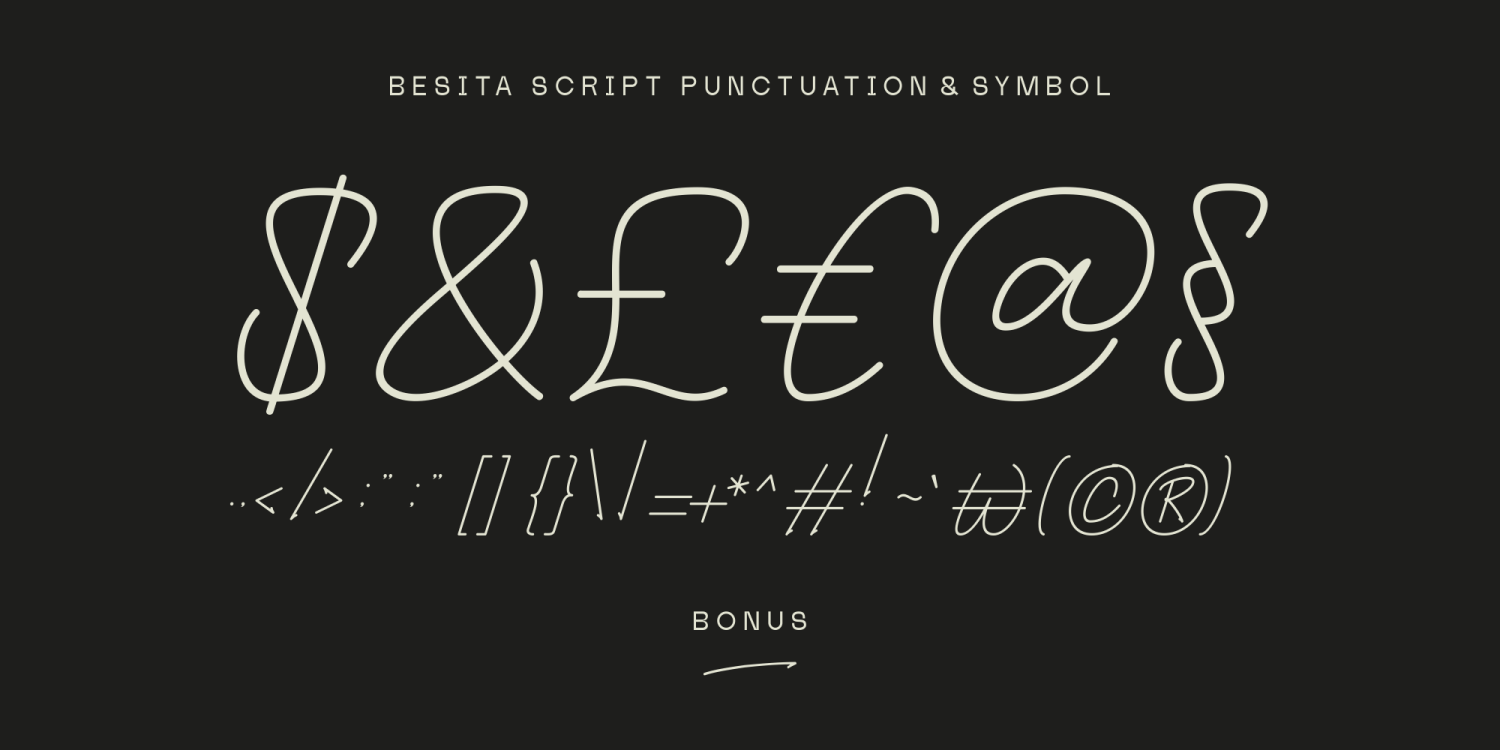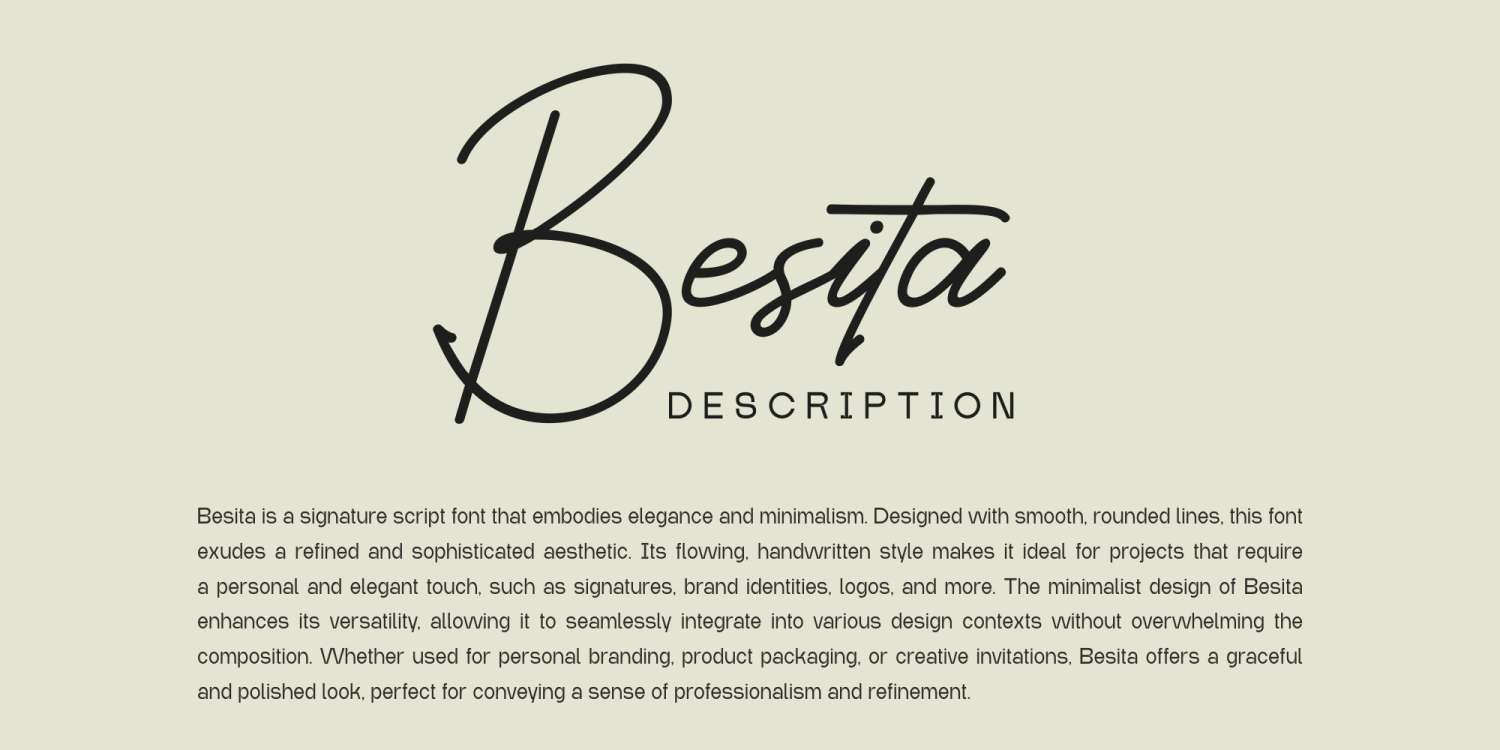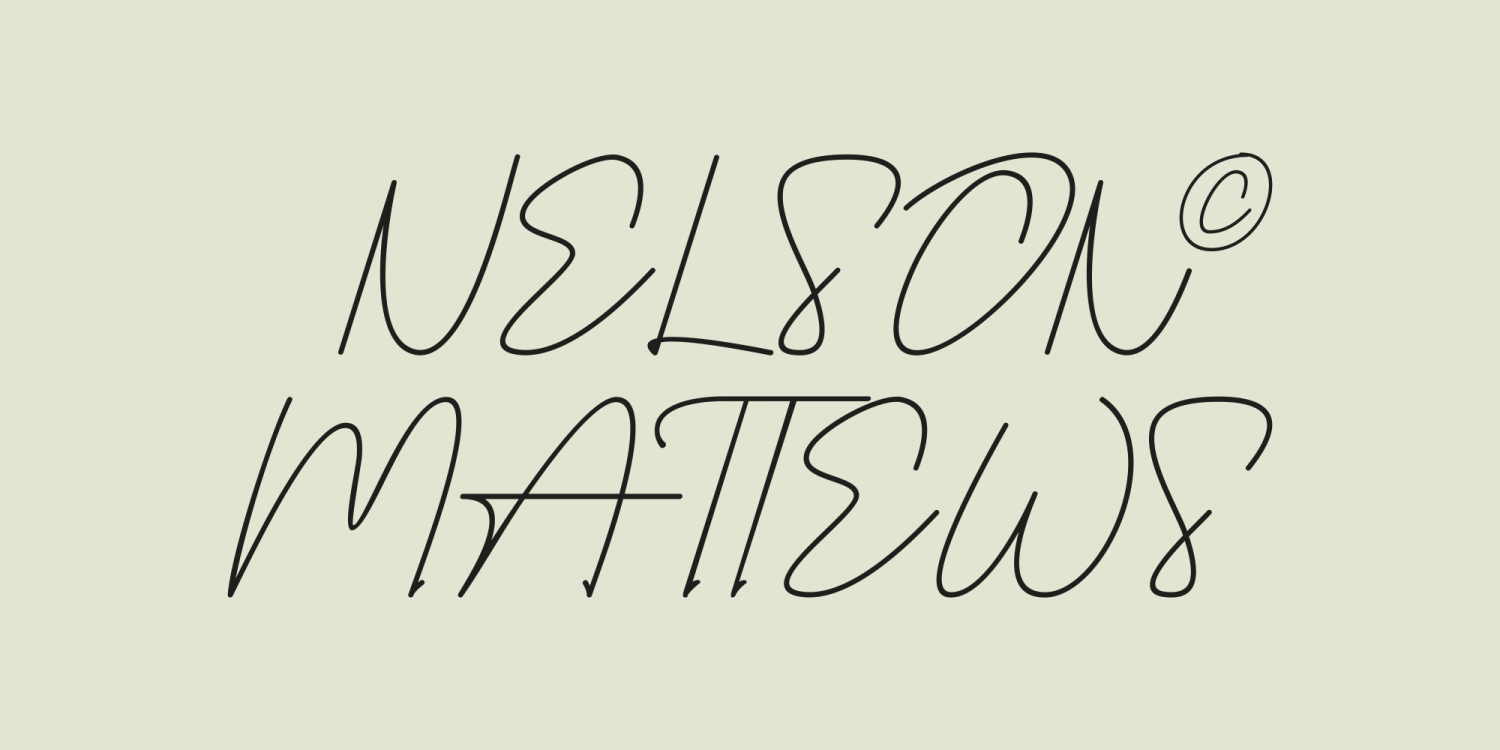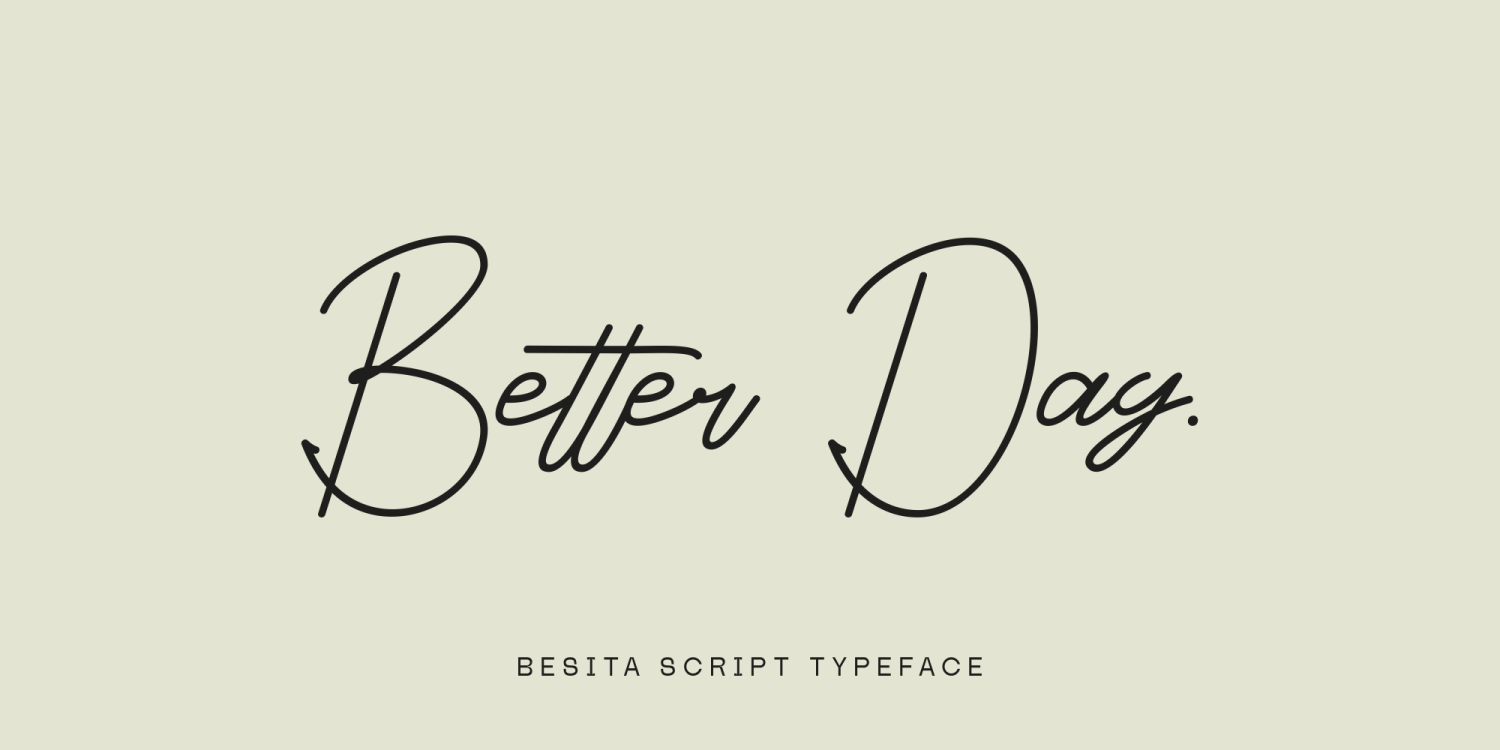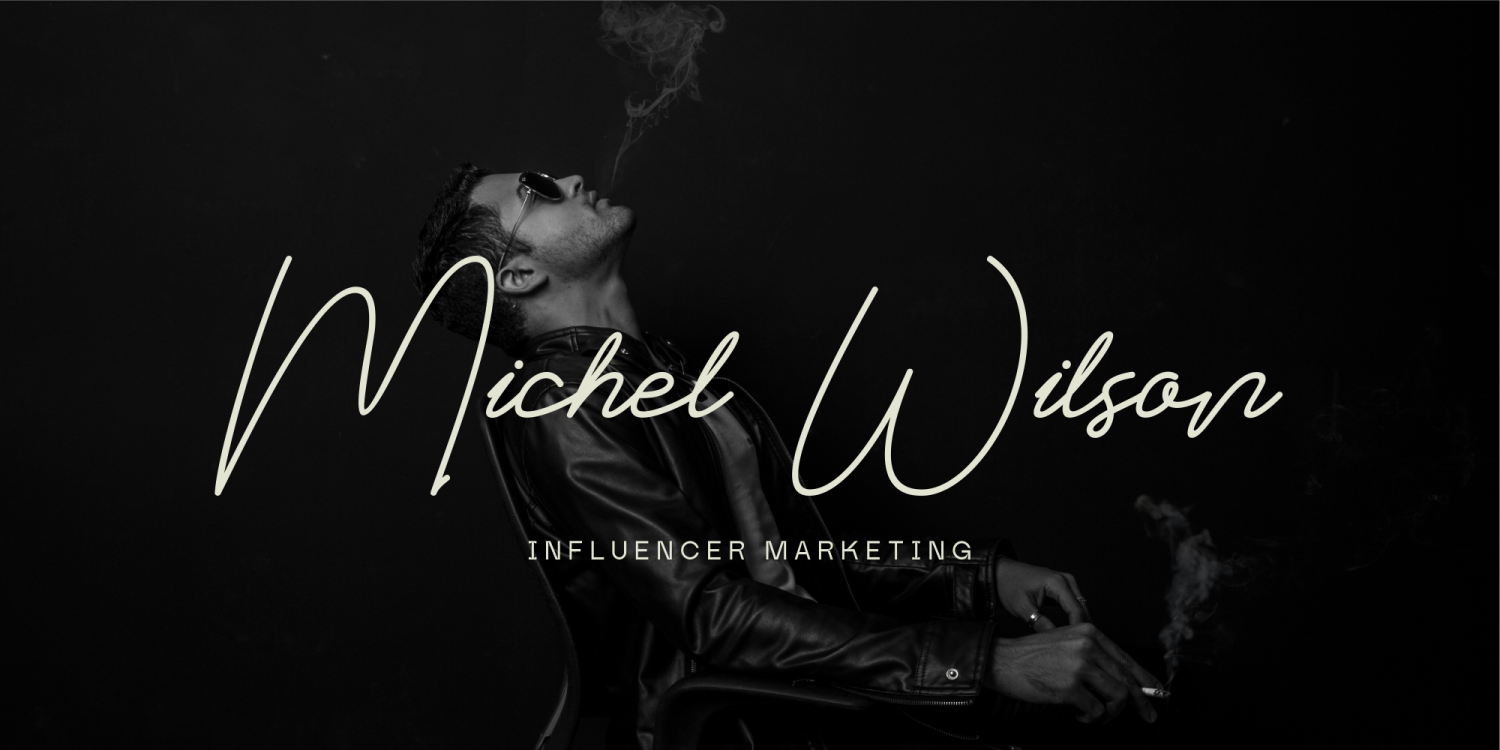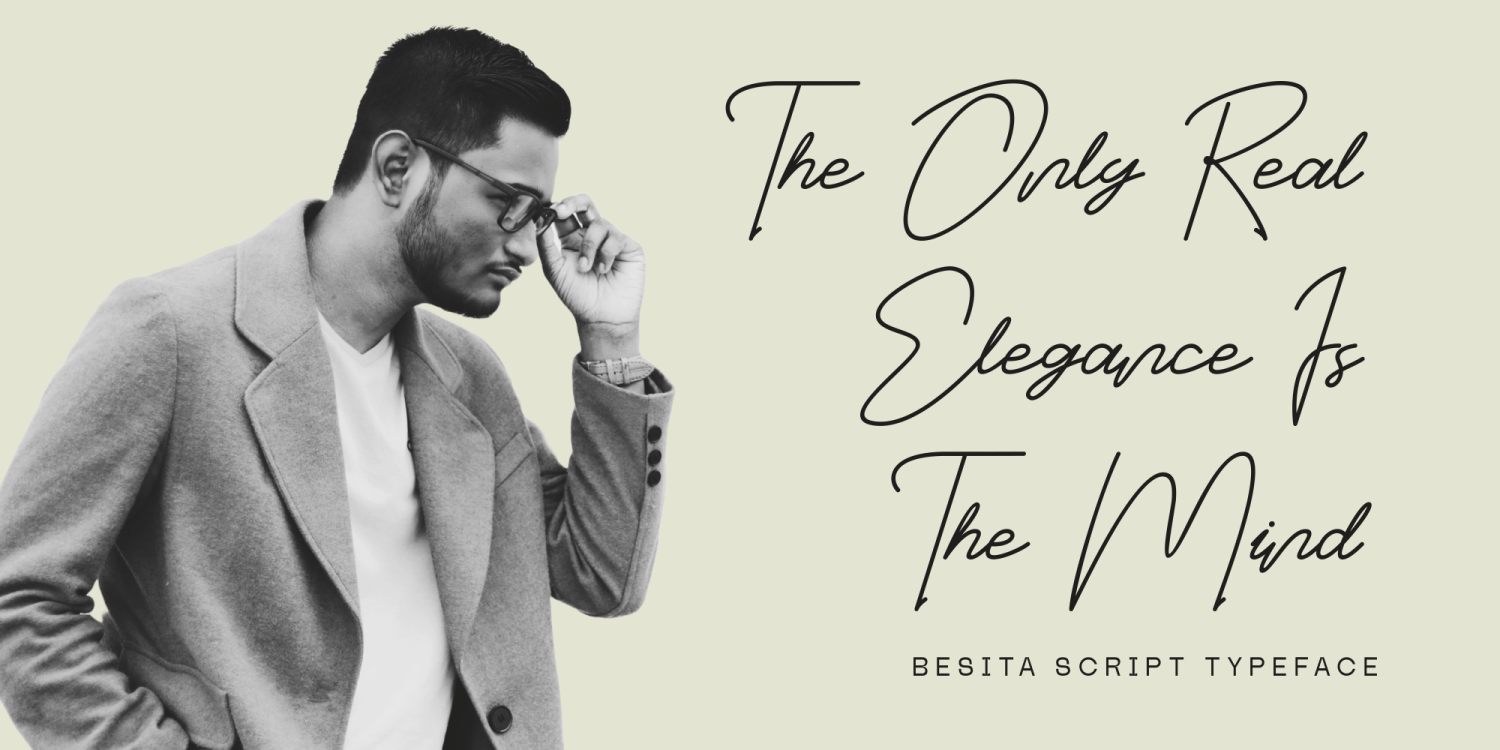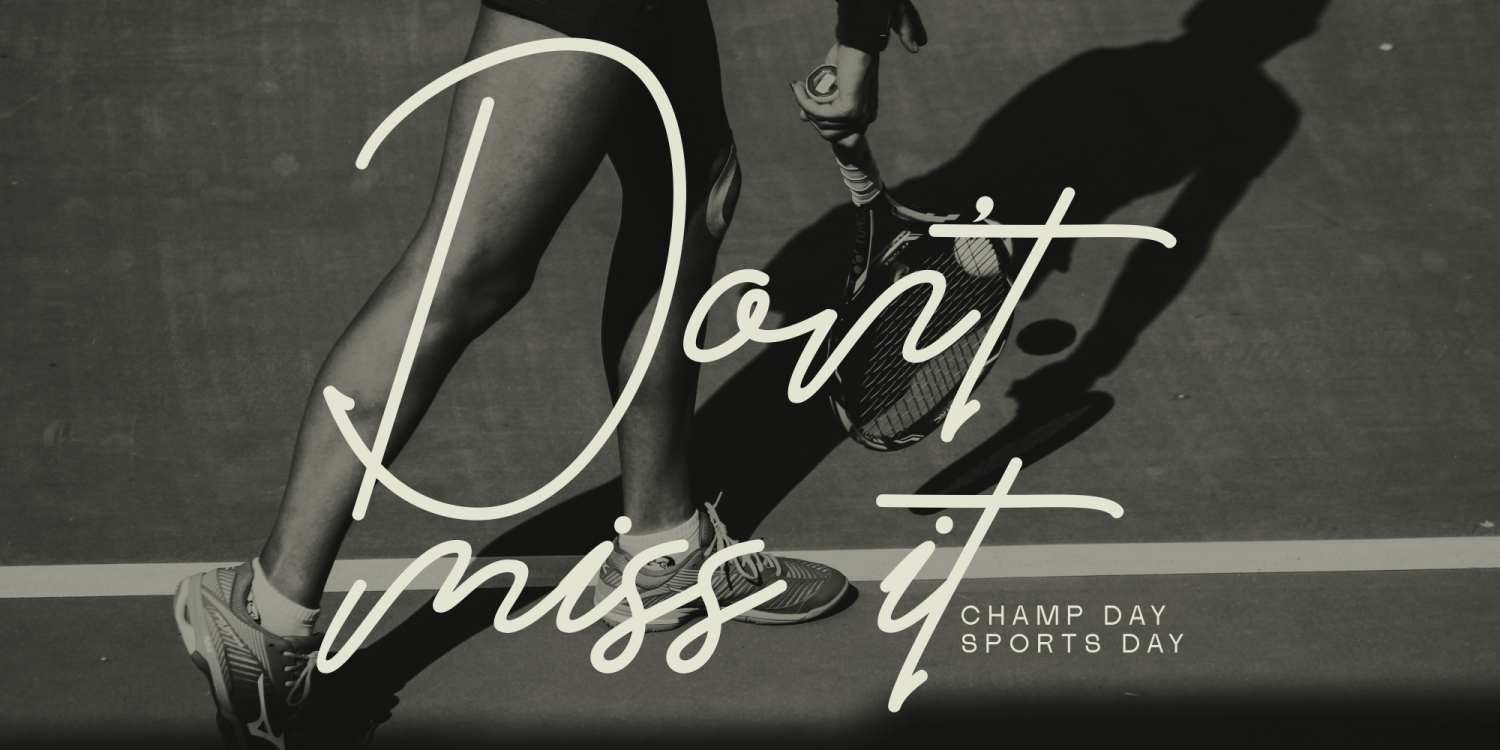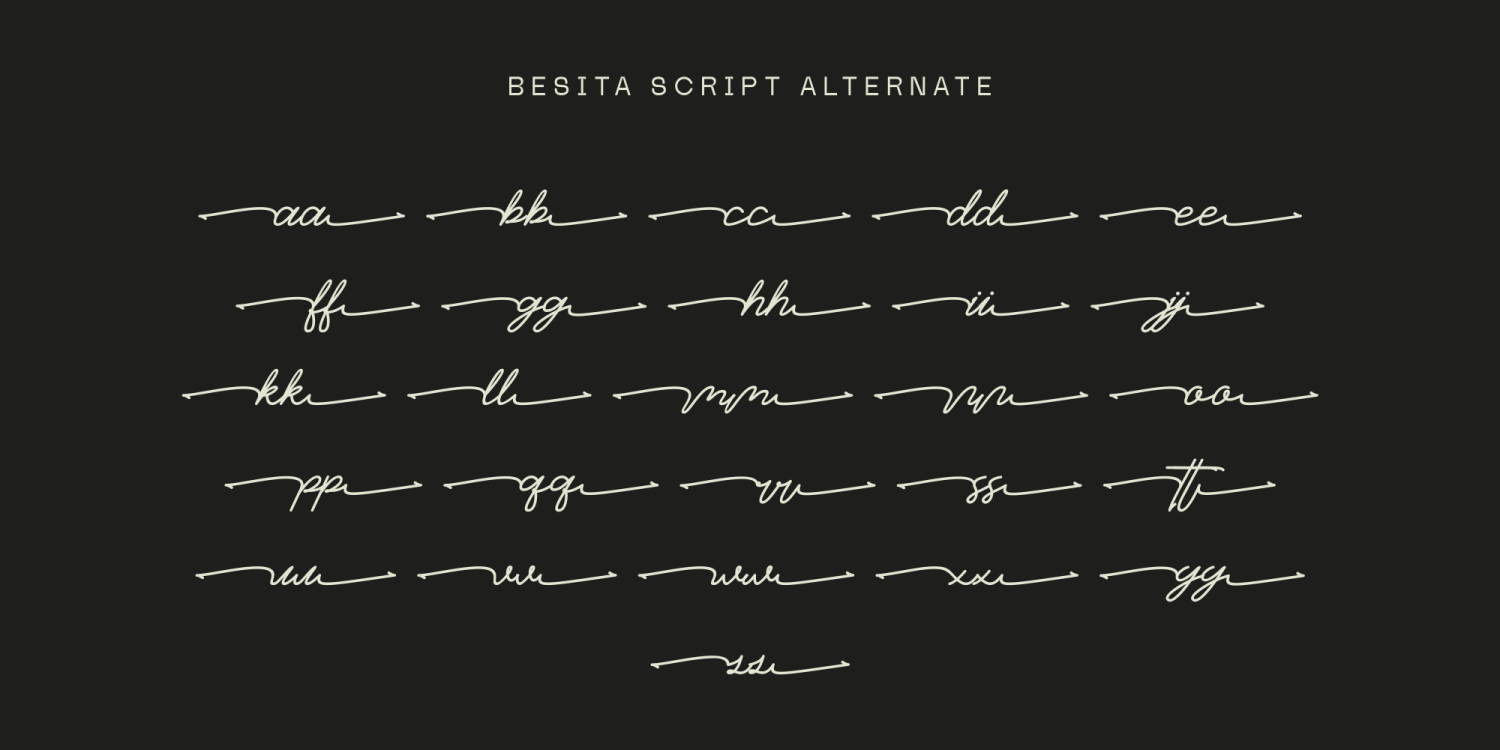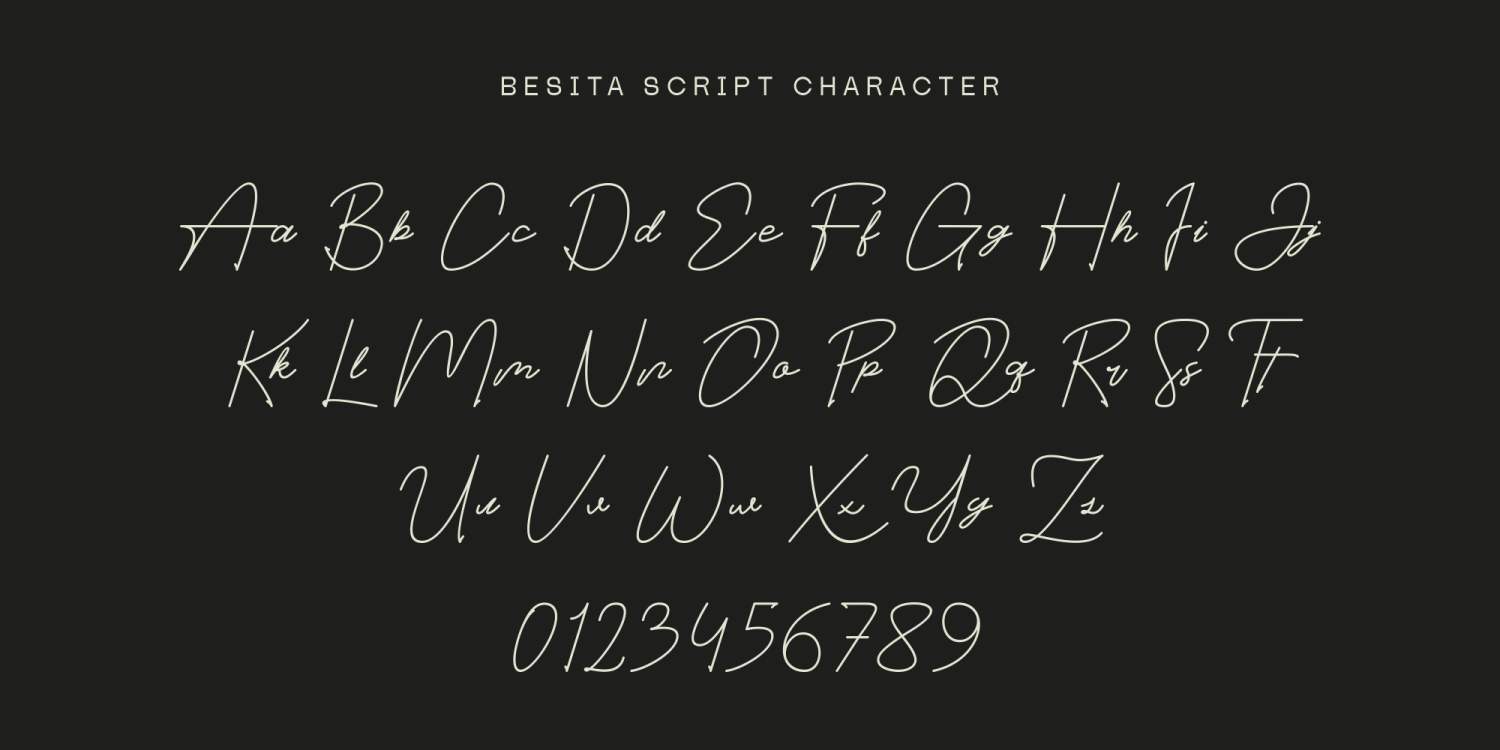
Besita
Font Family by Marvadesign
Introducing Besita is a signature script font that embodies elegance and minimalism. Designed with smooth, rounded lines, this font exudes a refined and sophisticated aesthetic. Its flowing, handwritten style makes it ideal for projects that require a personal and elegant touch, such as signatures, brand identities, logos, and more. The minimalist design of Besita enhances its versatility, allowing it to seamlessly integrate into various design contexts without overwhelming the composition. Whether used for personal branding, product packaging, or creative invitations, Besita offers a graceful and polished look, perfect for conveying a sense of professionalism and refinement.